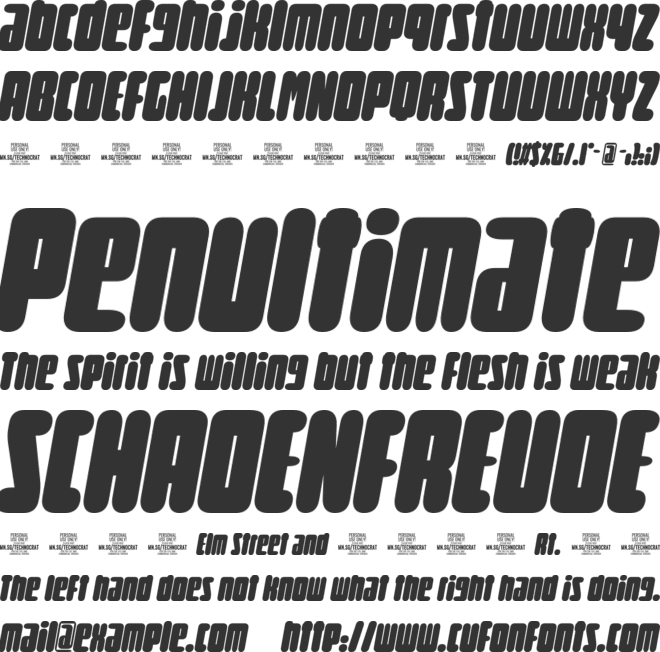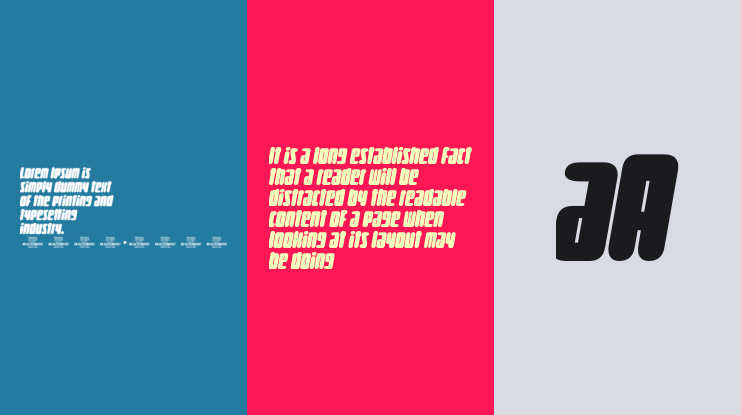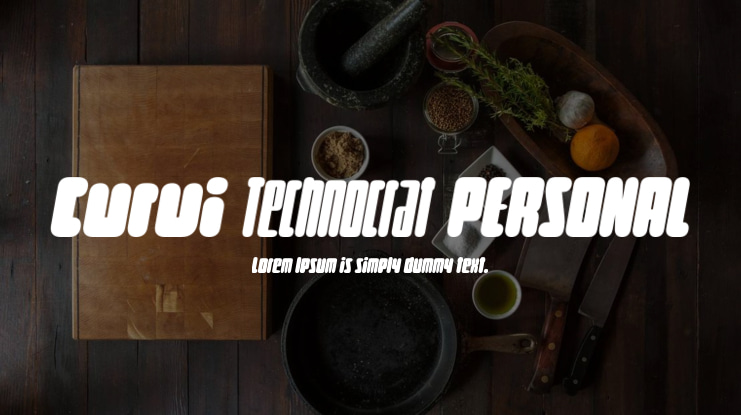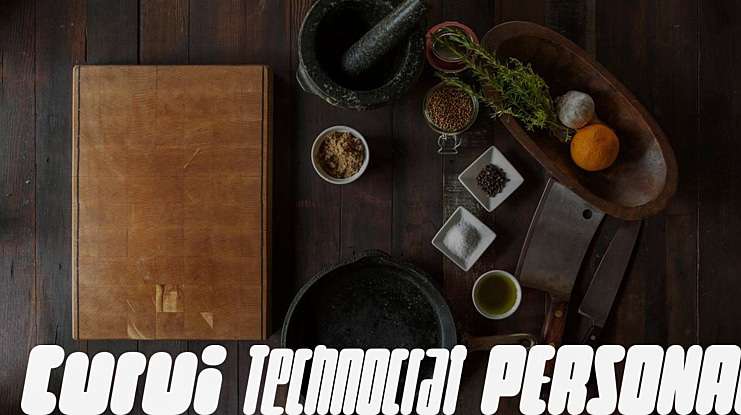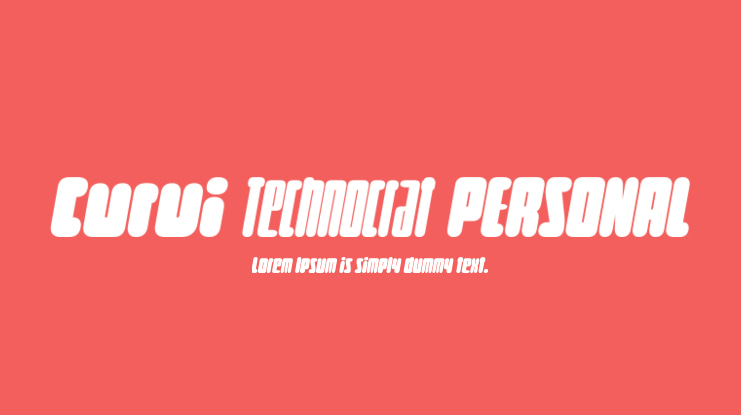
Curvi Technocrat PERSONAL Font Family
Mans Greback
Curvi Technocrat is a rounded, geometric font that captures the essence of speed and forward movement. Inspired by the smooth curves of race cars and the energy of urban graffiti, this heavy, slanted font family adds a touch of dynamism and softness to your designs.